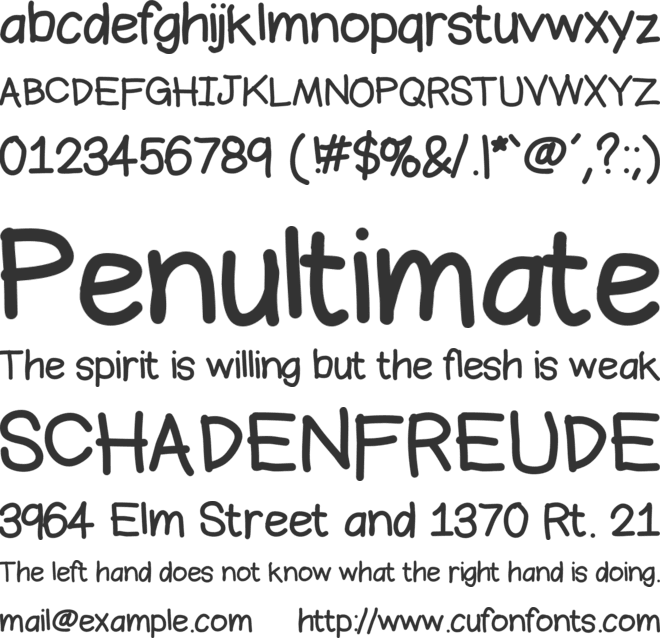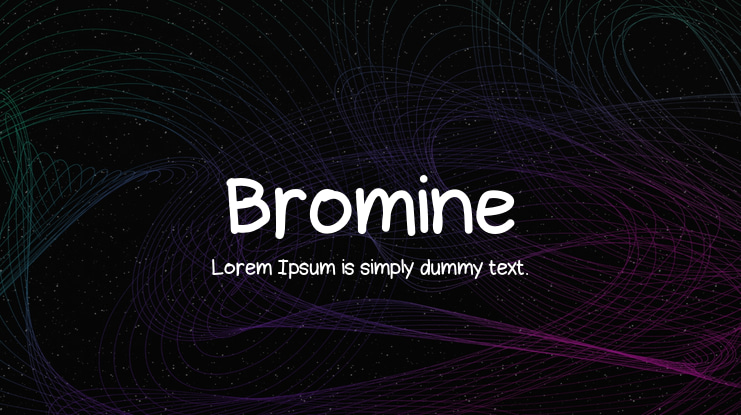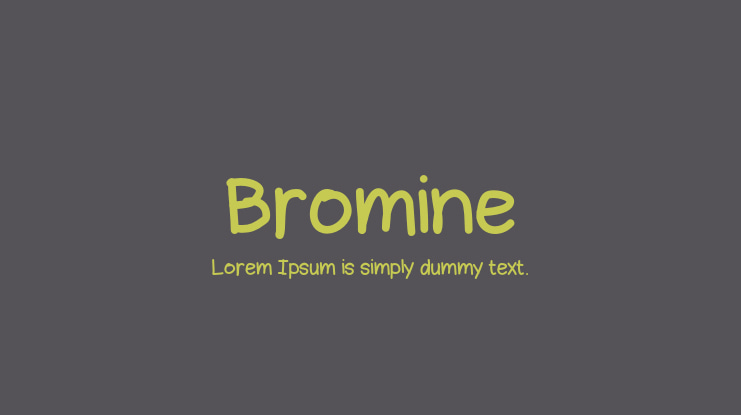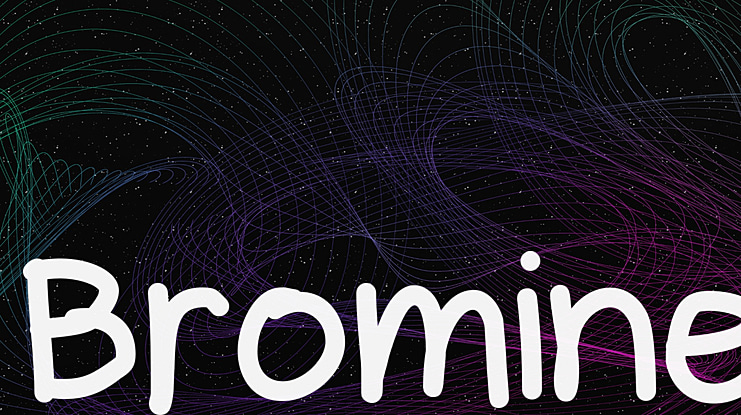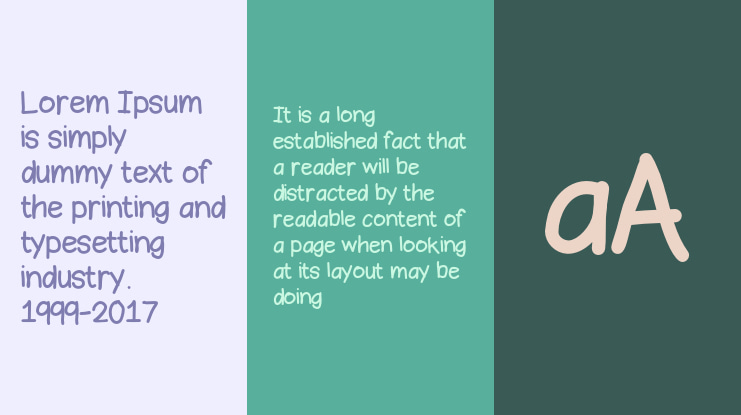
Bromine Font
The Bromine font is a handwriting Unicode font created in iFontMaker and refined in FontLab Studio. This is my first attempt at a font with Unicode characters. It comes with alphanumeric characters, punctuation and international characters. There are no Greek and Cyrillic characters. Like all other fonts, this font is in the public domain.